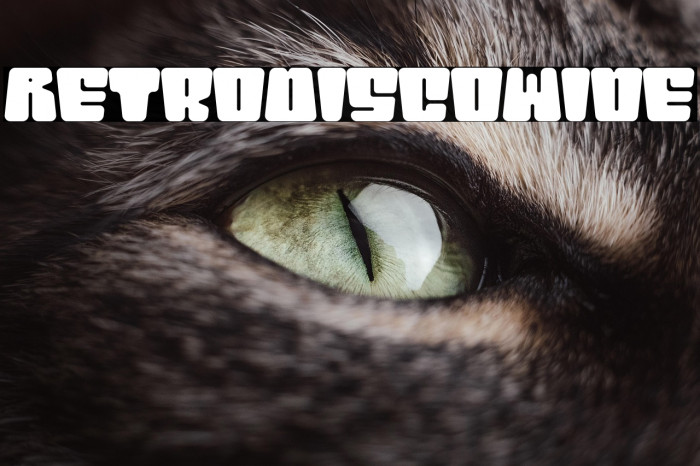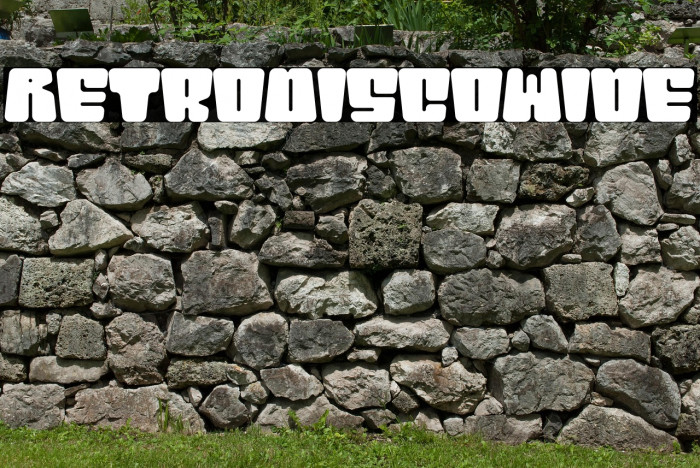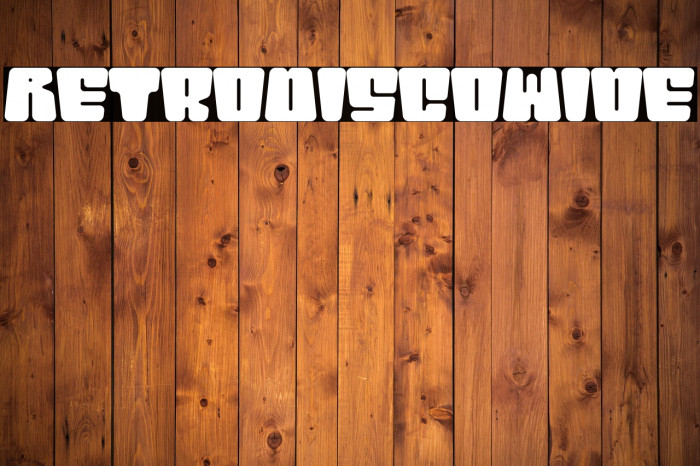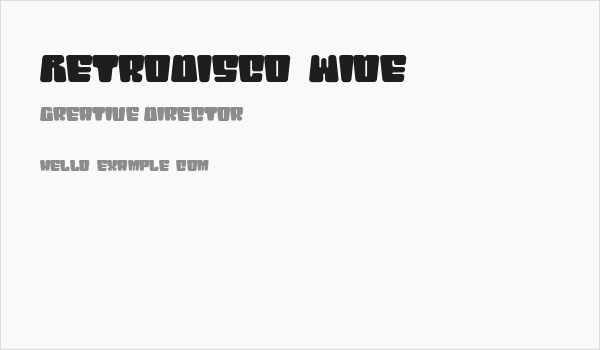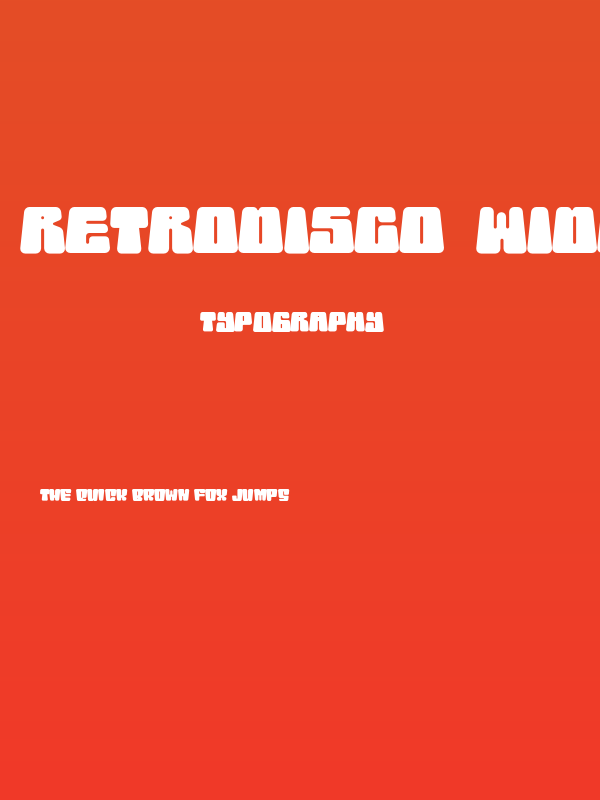
RetroDisco-Wide Font
RetroDisco-Wide Description
This font features a bold and wide design with a distinctly retro aesthetic, reminiscent of the disco era. The characters are uniformly thick, creating a strong visual impact. The rounded edges and smooth curves give it a playful and approachable feel, while the consistent width across all characters ensures a cohesive look. Its boldness makes it ideal for attention-grabbing headlines or titles, and the wide spacing between characters adds to its readability. The font's style is both nostalgic and modern, making it versatile for various design projects.
| Proposed Projects | Ideal for retro-themed posters, event flyers, album covers, and branding projects that require a bold statement. |